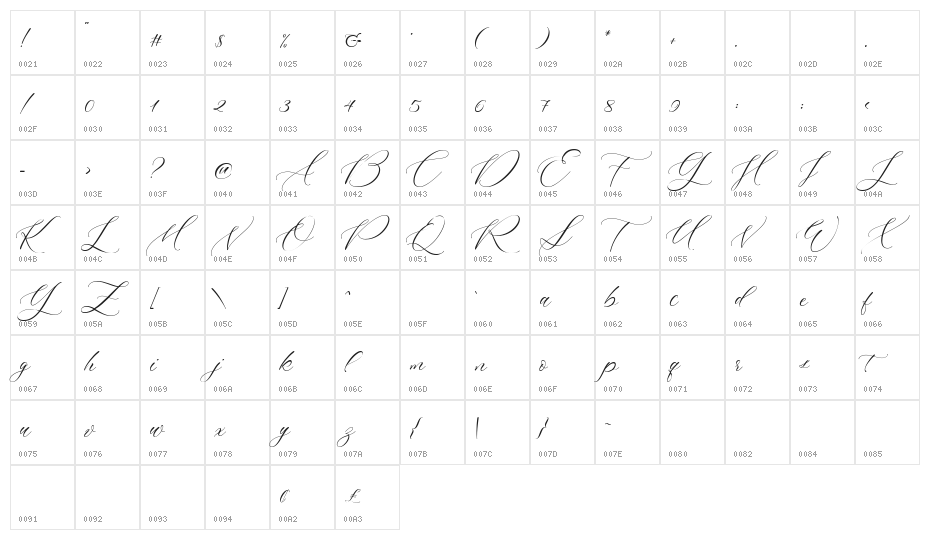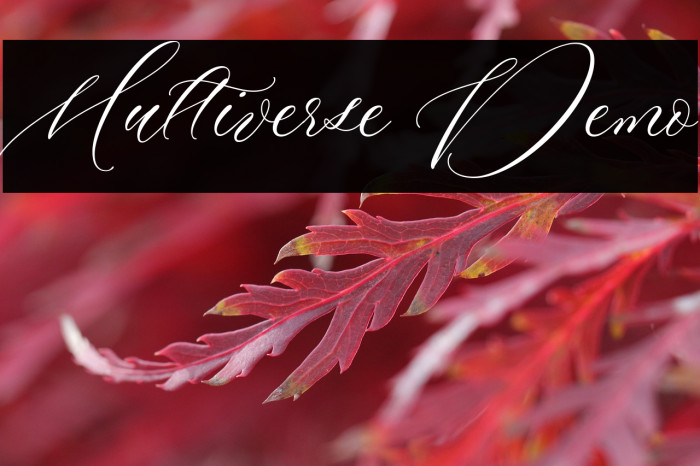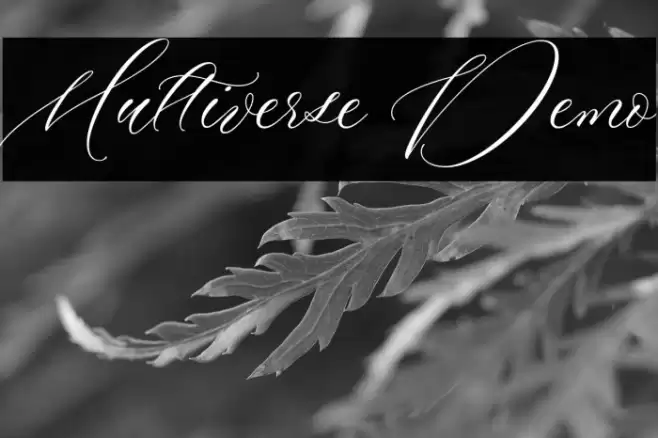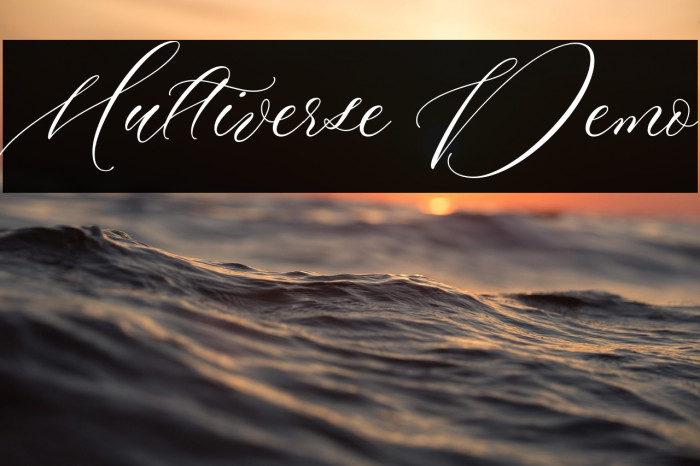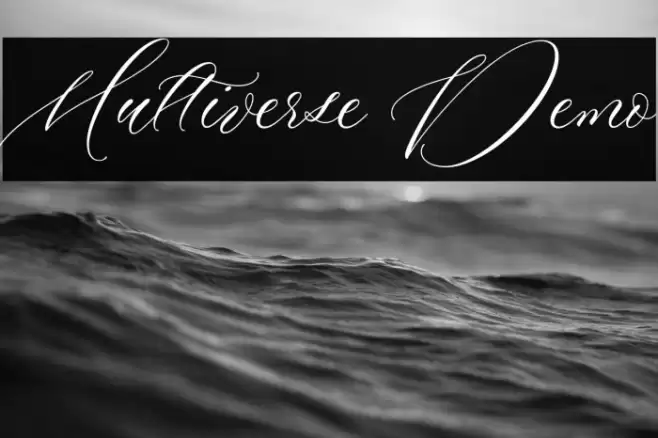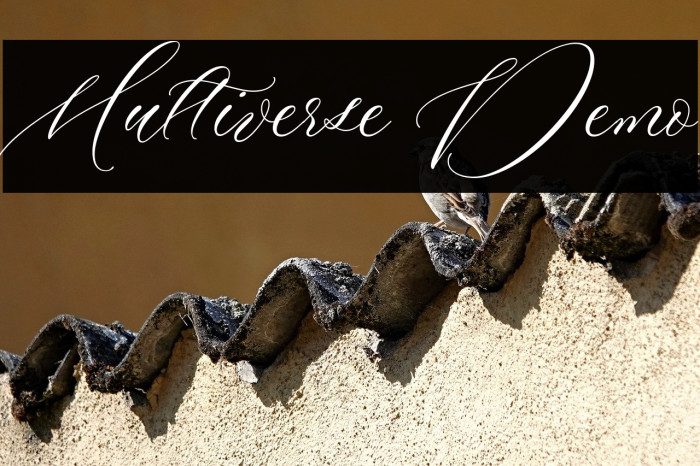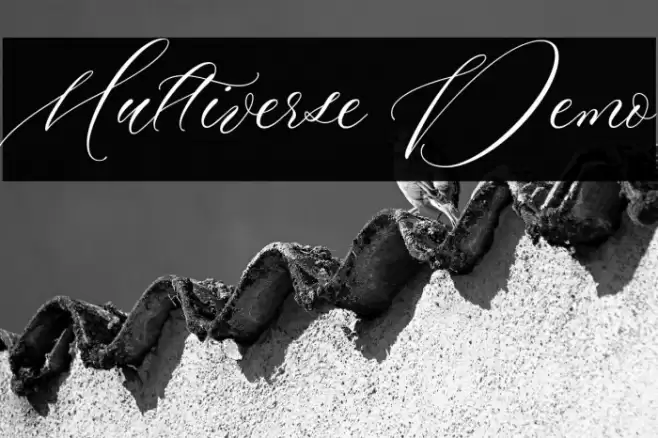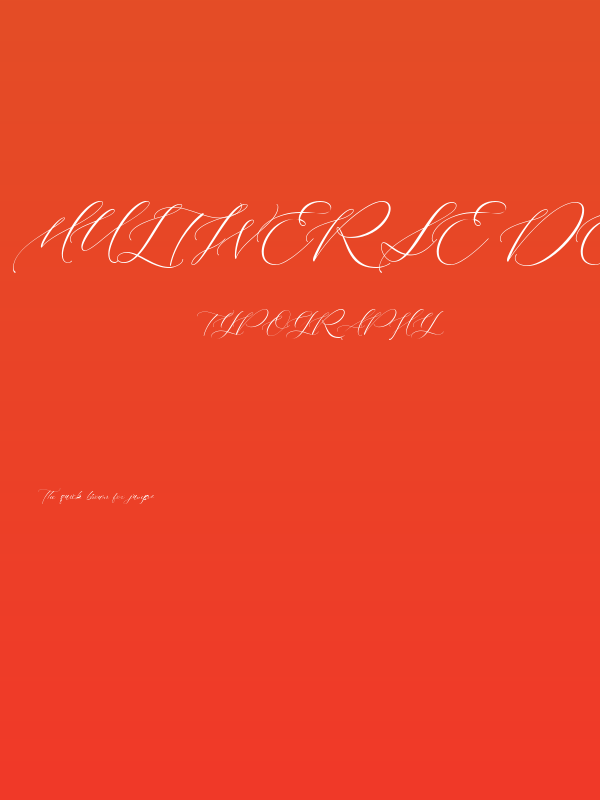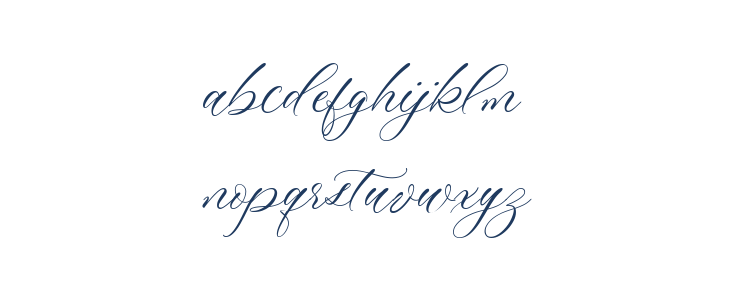
Multiverse Demo Font
Multiverse Demo Description
This elegant script font is characterized by its flowing, cursive style, reminiscent of traditional calligraphy. The letters are intricately designed with graceful loops and flourishes, giving it a sophisticated and artistic appearance. The uppercase letters are particularly ornate, with extended swashes that add a sense of grandeur. The lowercase letters maintain a consistent flow, making them highly readable despite their decorative nature. The numerals and special characters are equally stylized, ensuring a cohesive look across all elements. This font is perfect for projects that require a touch of elegance and refinement.